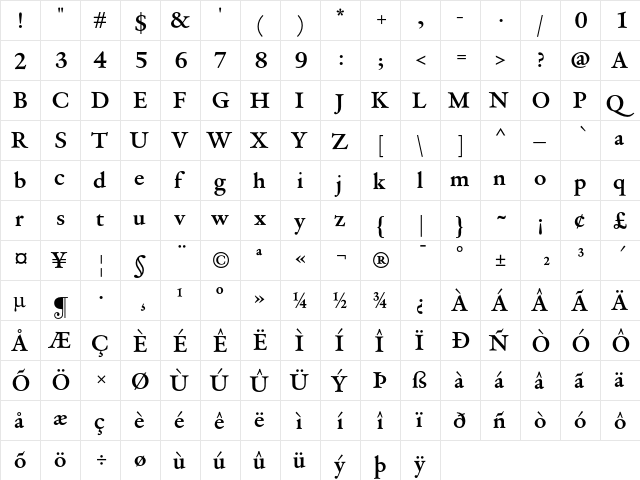
DTL VandenKeere D Bold
Design Context for DTL VandenKeere Typeface
DTL VandenKeere is a composed and adaptable typeface that performs quietly and consistently across a wide range of design contexts. The heavy weight commands attention and anchors typographic hierarchies.